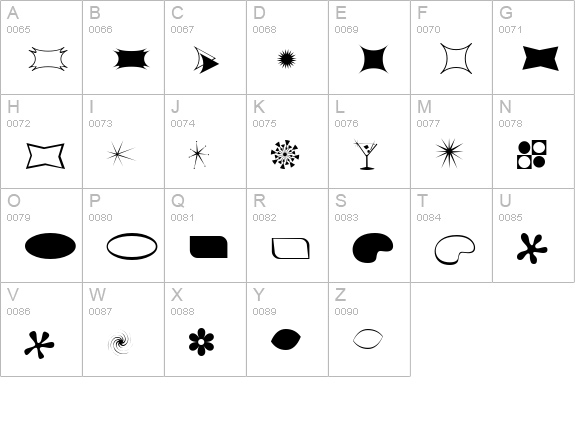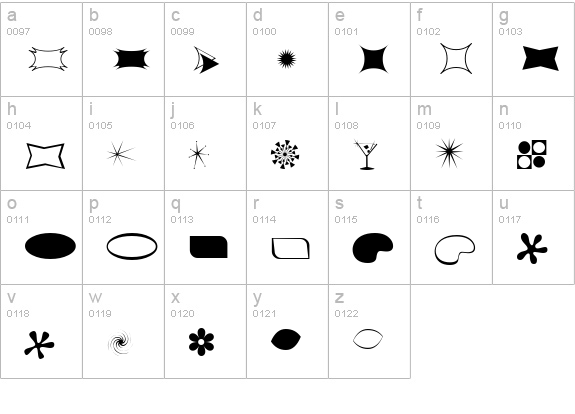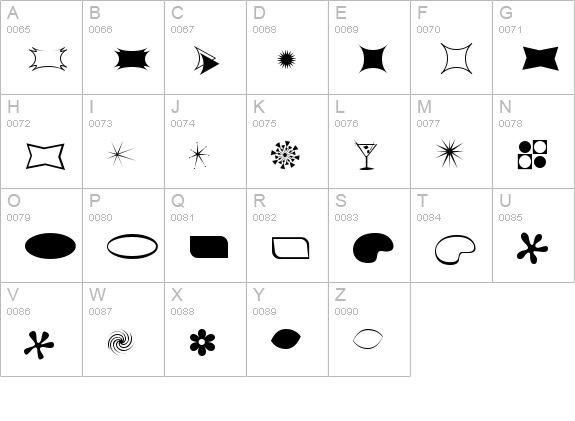
Step back in time to the swinging 60s with the 60s Chic font. This groovy and retro font captures the essence of the era with its bold lines and playful curves. Perfect for adding a touch of vintage flair to your designs, 60s Chic is sure to make a statement. Best of all, this font is free to download at FontsMarket.com. So go ahead and bring a little bit of 60s style into your projects today!